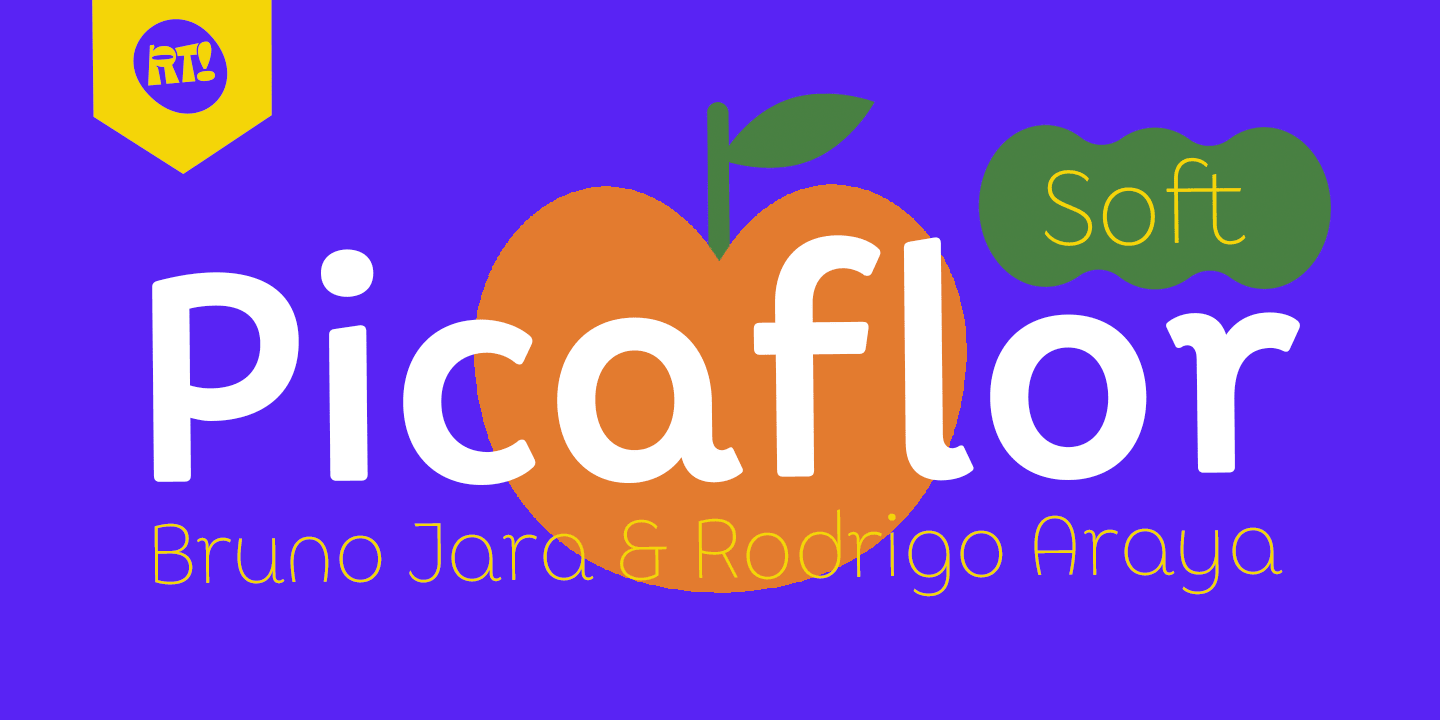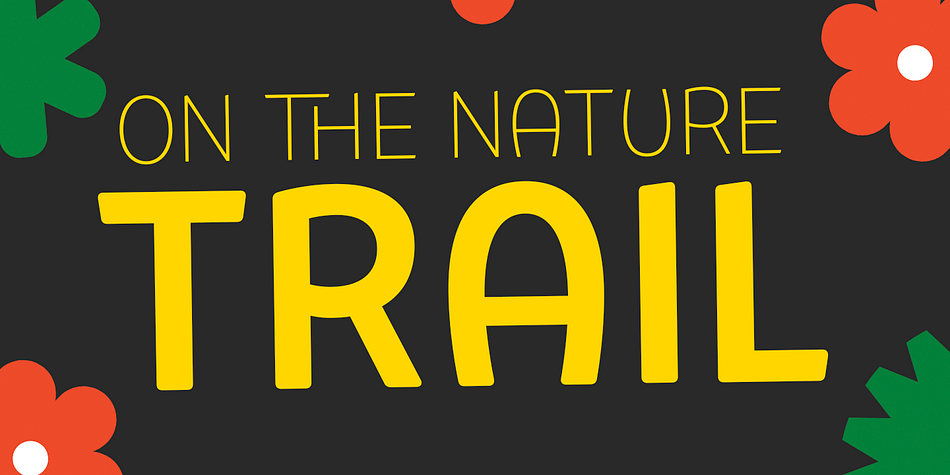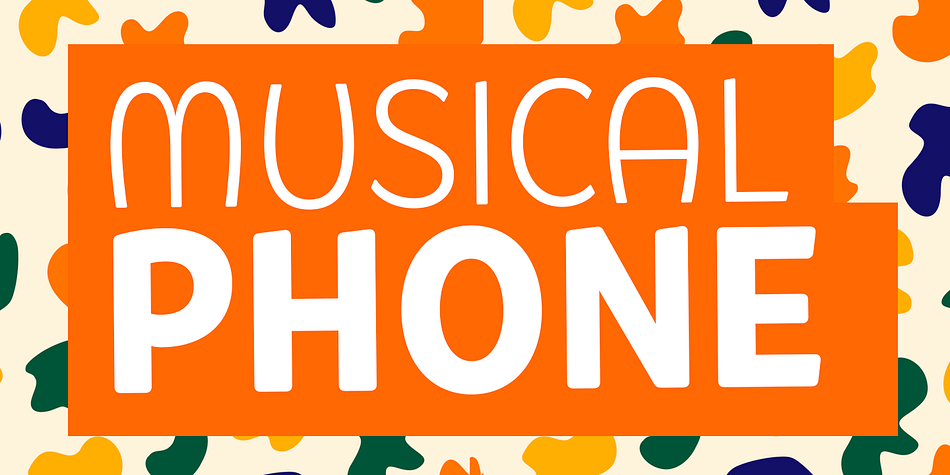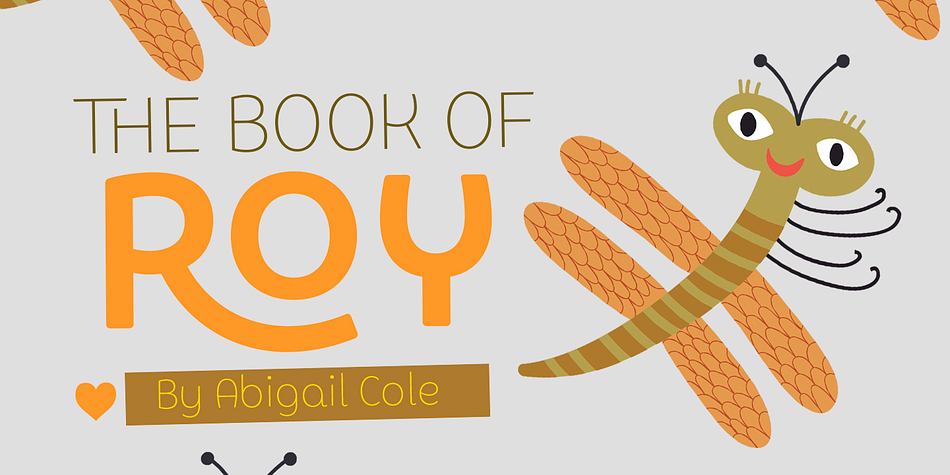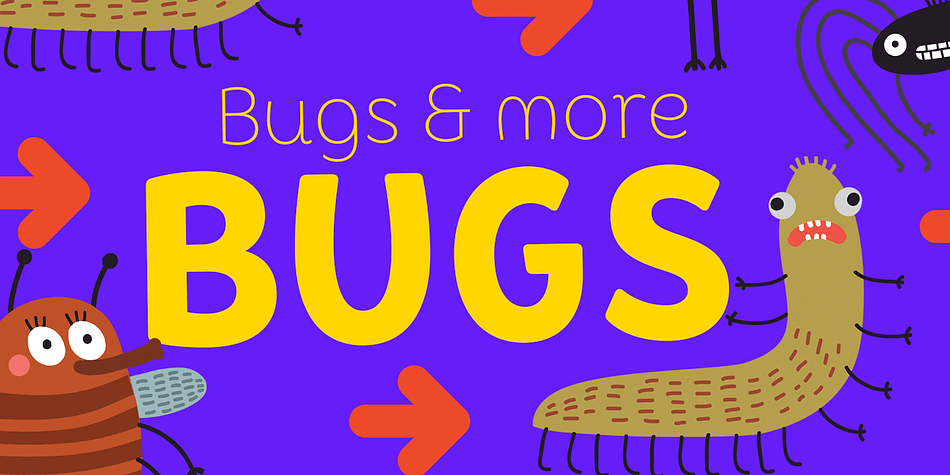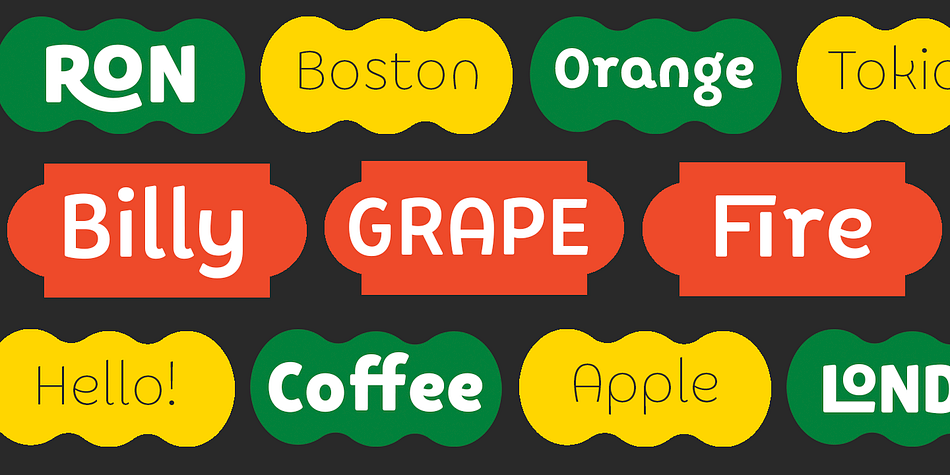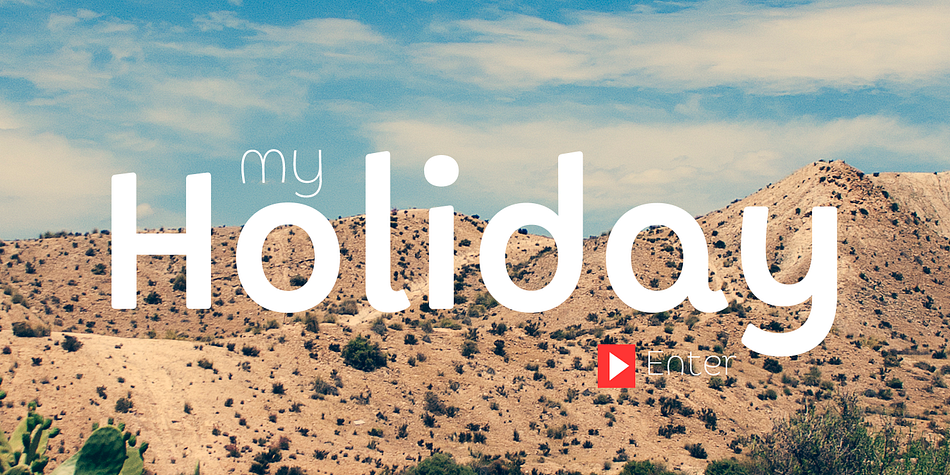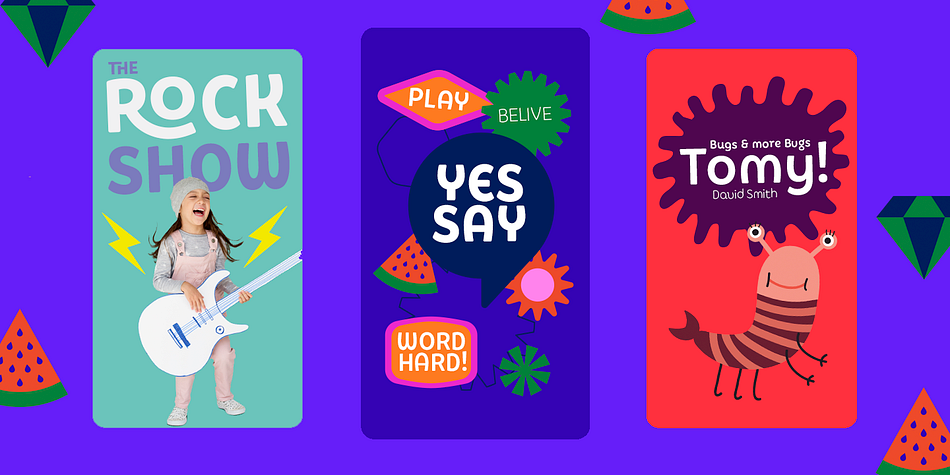
Picaflor Soft
Designed by Rodrigo Araya Salas and Bruno Jara, Picaflor Soft is a display sans, hand display and sans serif font family. This typeface has six styles and was published by Rodrigo Typo.
Picaflor soft, is a continuation of “Picaflor” now in a rounded version, especially for titles, it contains different styles from Thin-Black, in addition to multiple languages